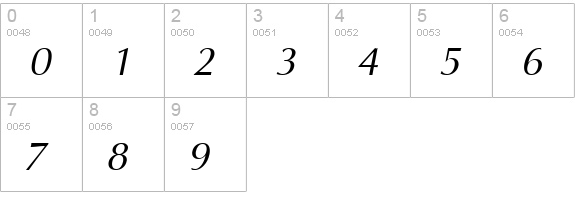
AGOpus Oblique Font Details
AGOpus Oblique is a distinctive, italic variant in the AGOpus typeface family \xE2\x80\x94 well suited to design and typography projects.
AGOpus Oblique is a stylish and modern font that exudes elegance and sophistication. Its sleek design and unique slanted appearance make it perfect for a wide range of projects, from branding to editorial design. With its clean lines and subtle curves, AGOpus Oblique adds a touch of sophistication to any design. What sets AGOpus Oblique apart is not just its aesthetic appeal, but also the fact that it is available for free download at FontsMarket.com. This means that you can easily access this beautiful font and use it in your projects without any cost. Whether you are a designer looking to add a touch of elegance to your work or a business owner wanting to elevate your brand, AGOpus Oblique is the perfect choice. Download it now and enhance your designs with this stunning font.